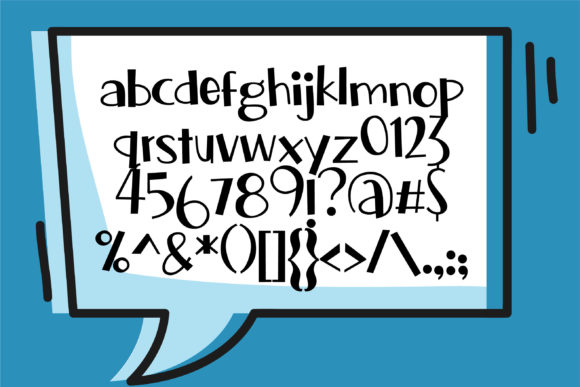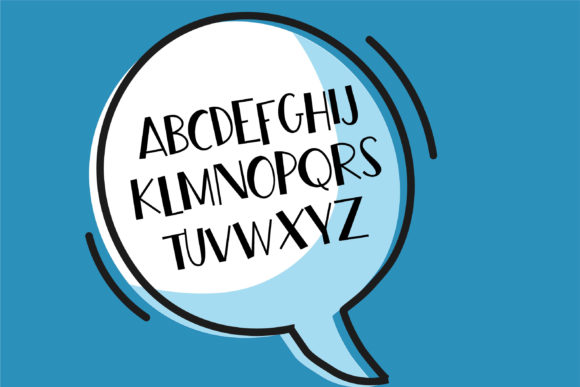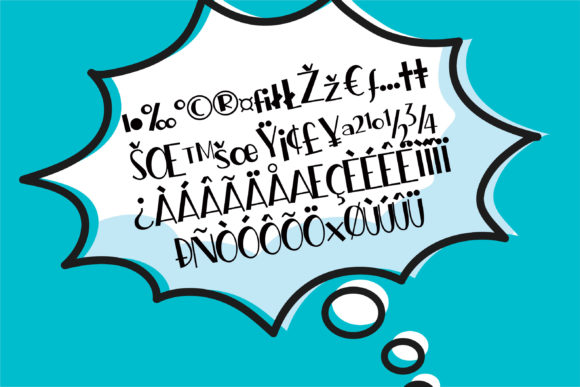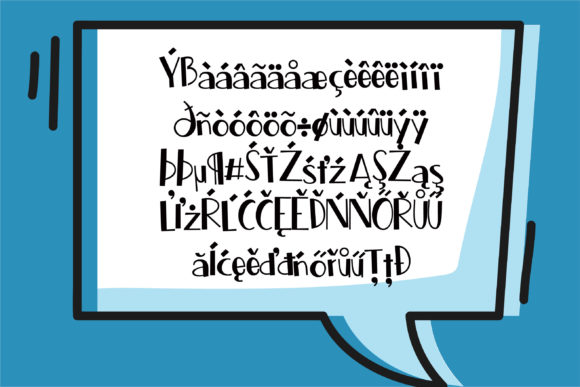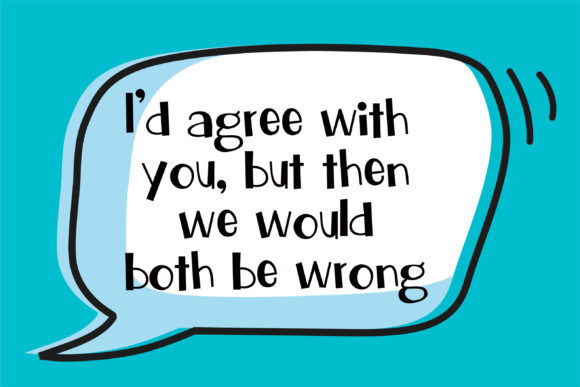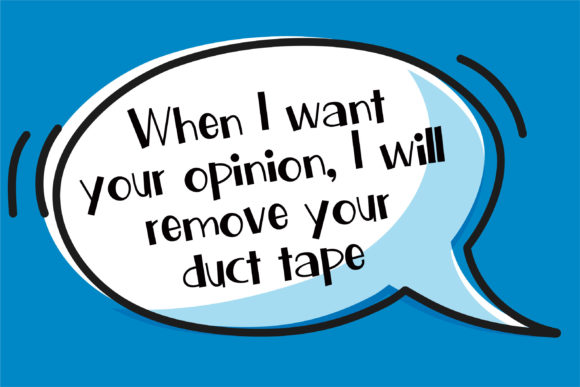
Get Ready to Unleash Your Creativity with the Chatterbox Font
Remember the excitement of creating your first cartoon character or designing a poster for your favorite childhood movie? The rush of imagination and the joy of bringing your ideas to life is a feeling that never gets old. As creatives, we’re always on the lookout for the perfect tools to help us express ourselves and bring our vision to the world.
That’s where the Chatterbox Font comes in – a cool duo styled display font that’s perfect for adding a touch of whimsy and fun to your designs. Whether you’re working on a cartoon, children’s game, or book cover, this versatile font is sure to bring a smile to your face and delight your audience. With its classic and 3D styles, the Chatterbox Font is a valuable asset for designers looking to add some extra flair to their projects.
- Unique Characteristic: The font features a unique, playful, and modern design with rounded edges and subtle curves, making it ideal for digital and print media.
Chatterbox Font Review
Overall, I think Chatterbox is a fun and playful font that can add a lot of personality to a design. ✨ The rounded edges and smooth lines give it a friendly feel that’s perfect for projects like children’s books, social media, or even food labels. The font comes in a range of weights, from light to bold, which makes it versatile and easy to use.
One of the things I like most about Chatterbox is its legibility. ✨ Even at smaller sizes, the font remains clear and easy to read, which is a must-have for any font. The font also supports a wide range of languages, making it a great choice for international projects.
- ⚠️ The font may not be suitable for formal or professional projects, as it can come across as too casual or playful.
- ⚠️ Some users may find the font too rounded or soft, which can make it difficult to read in certain contexts.
- ⚠️ The font’s weight range is limited compared to other fonts, which may make it less versatile for certain projects.
Overall, I think Chatterbox is a solid choice for designers looking for a fun and playful font. While it may have some limitations, it’s a great option for projects that require a friendly and approachable feel. With its clear legibility and wide language support, Chatterbox is definitely worth considering for your next design project.
For best results, use the Chatterbox font for titles, headings, and emphasis. It’s ideal for creating a playful and modern aesthetic. Experiment with different font sizes and colors to achieve the desired effect.